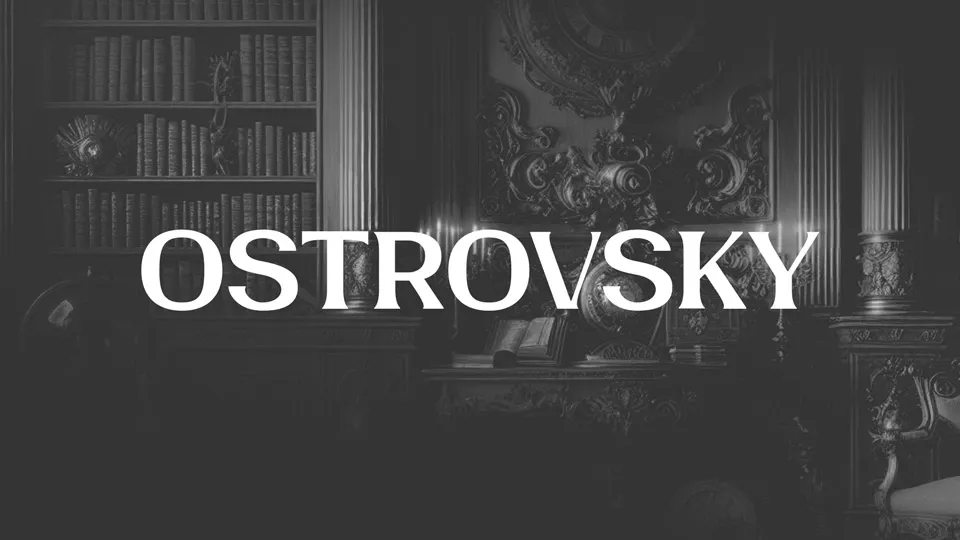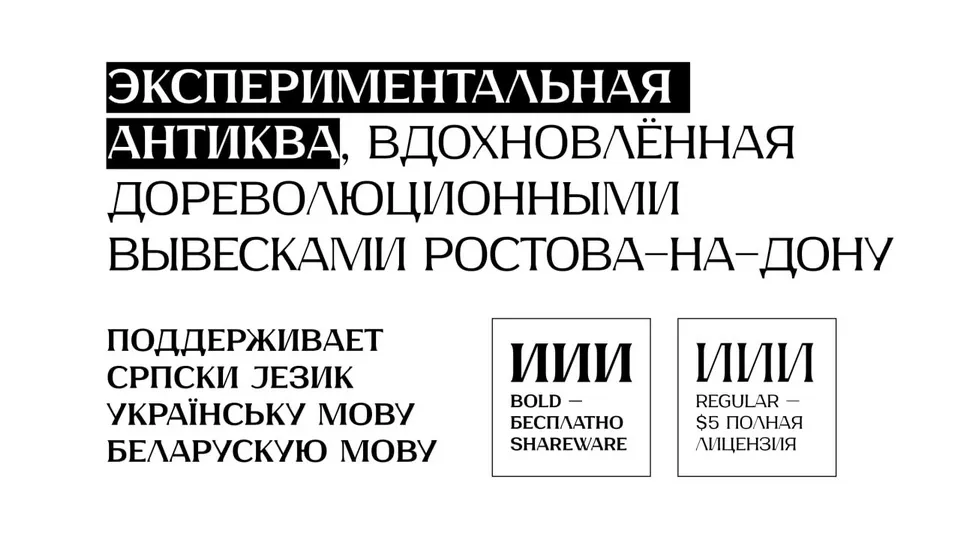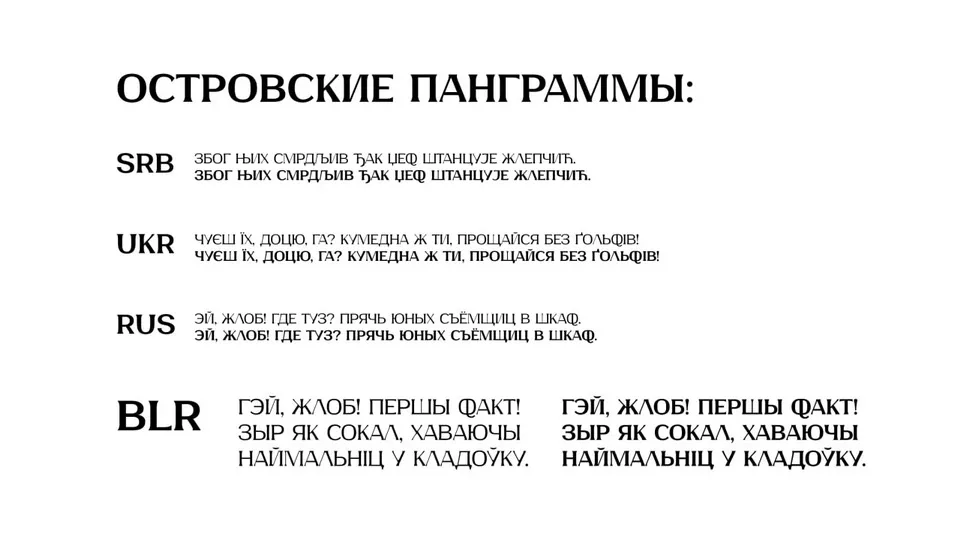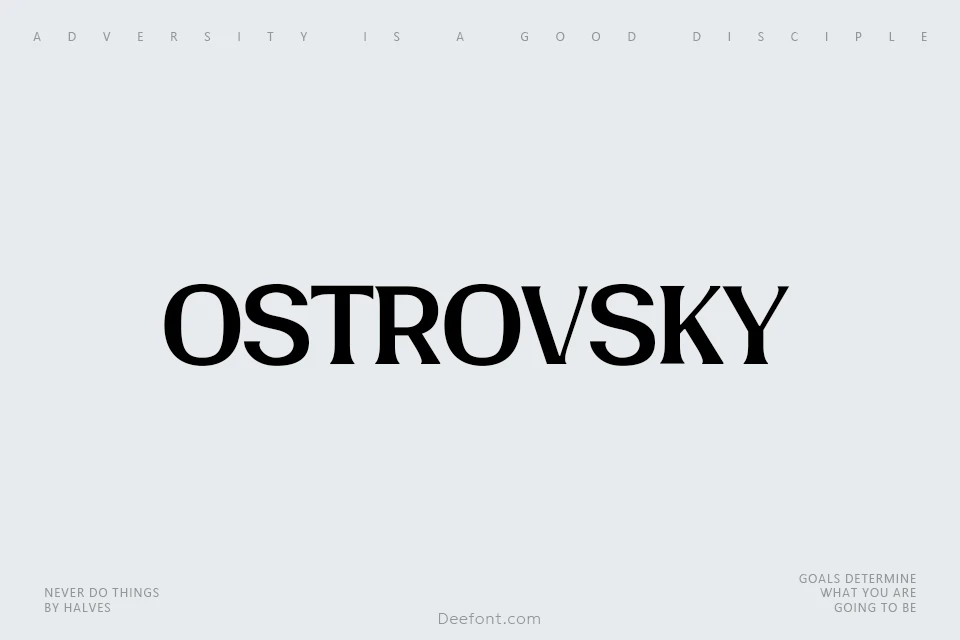
Ostrovsky Font
Ostrovsky Font is a bold serif typeface that embodies vintage charm and timeless elegance. Inspired by the weathered beauty of old street signage, it features classic serifs with subtle imperfections, evoking a sense of nostalgia and craftsmanship. Perfect for creating posters, labels, branding materials, or any design that seeks to capture retro aesthetics, Ostrovsky adds authenticity and sophistication to your text. Its bold presence ensures readability while delivering a distinctive character that stands out. Whether used for personal or commercial projects, Ostrovsky Font is a versatile choice for designers aiming to blend tradition with creativity.